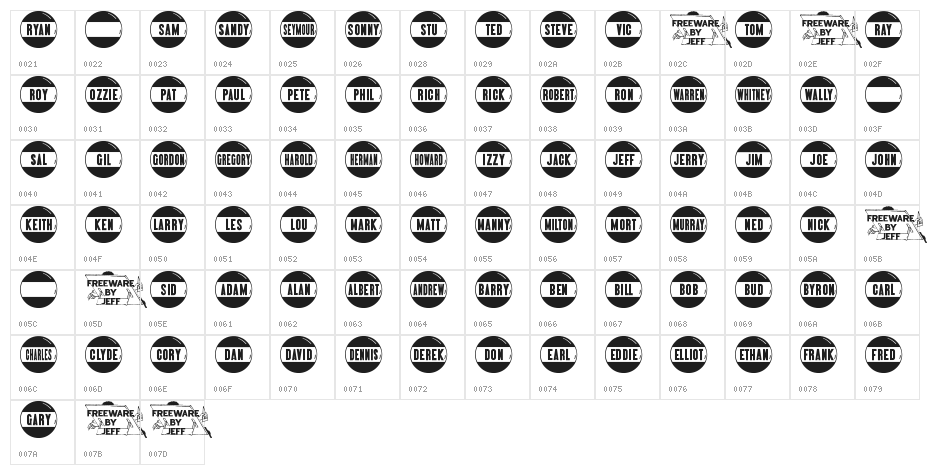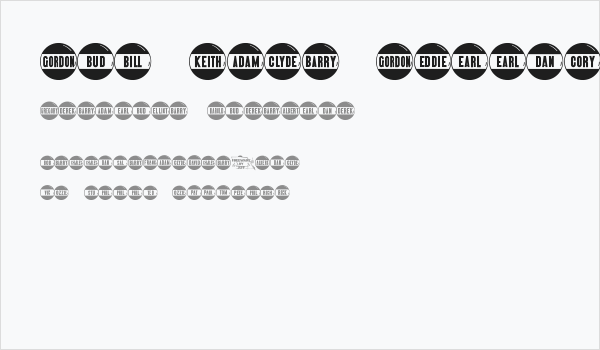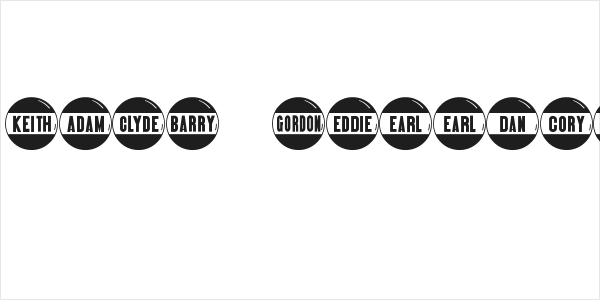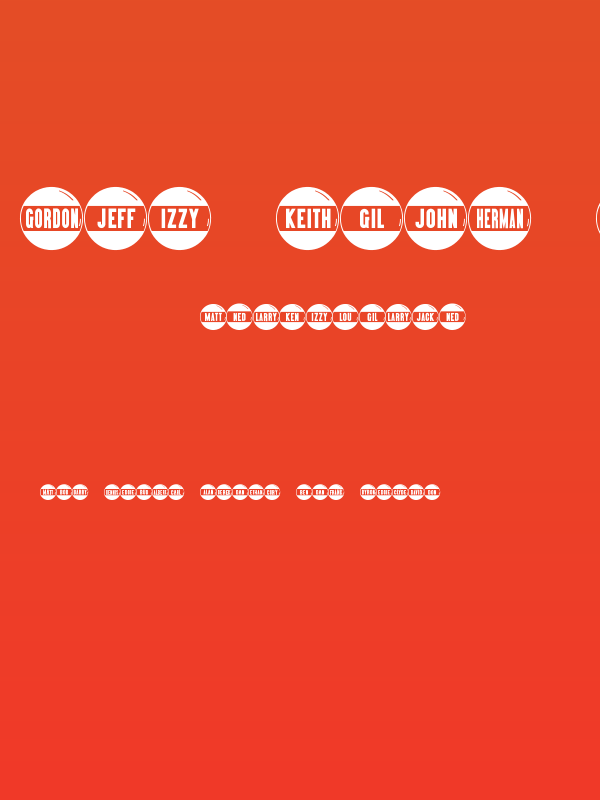
Big Name Buttons JL Font
Big Name Buttons JL Description
This font features bold, uppercase letters enclosed within circular shapes, creating a striking and attention-grabbing appearance. The letters are sans-serif, with a modern and clean design that emphasizes readability. The contrast between the thick, black outlines and the white interior of the circles enhances visibility and impact. This style is reminiscent of vintage button badges, giving it a retro yet timeless appeal. The font's unique presentation makes it ideal for designs that require a bold statement or a playful touch.
| Proposed Projects | Ideal for logo design, branding, merchandise, posters, and any project requiring a bold, retro aesthetic. |